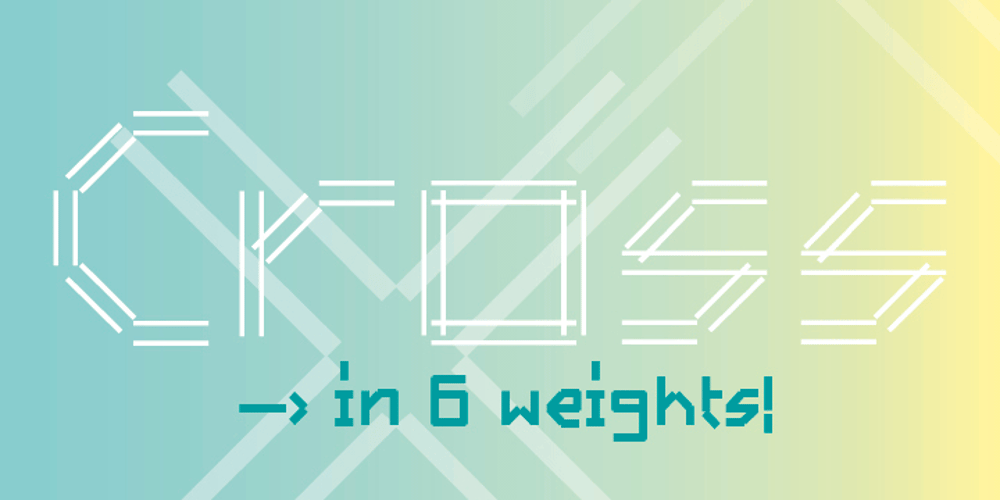
Cross
Cross font
Cross Font Family was designed by Lars Harmsen and published by Volcano Type. Cross contains 6 styles and family package options. A constructed font family with six weights.